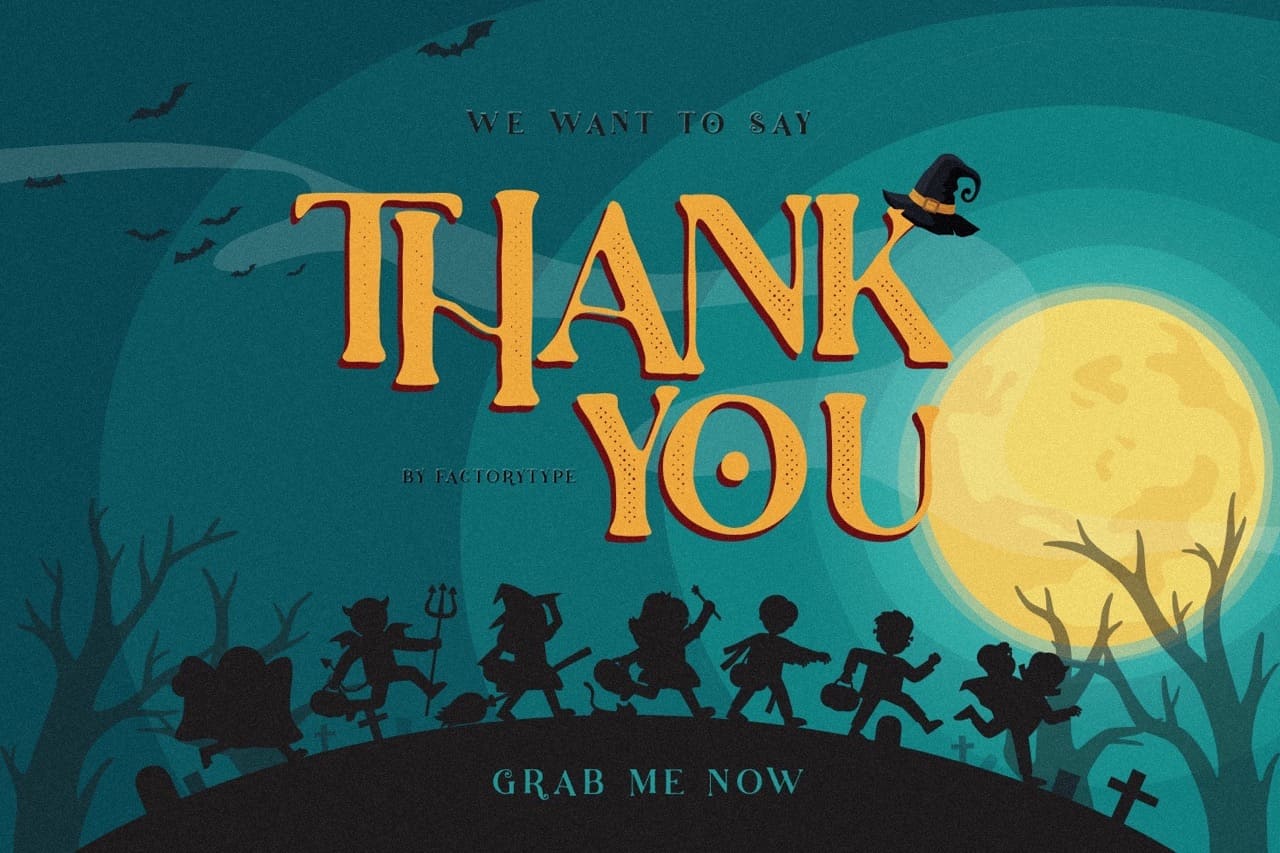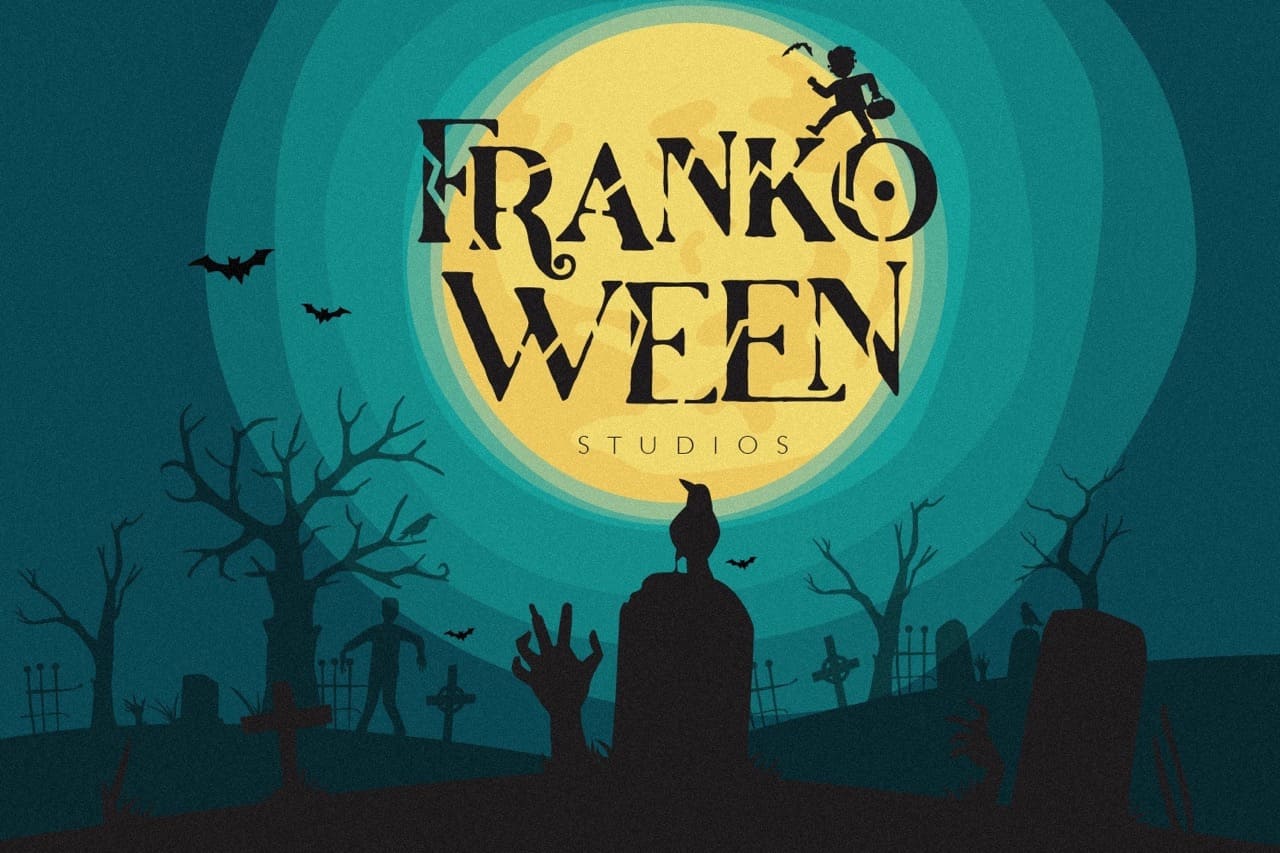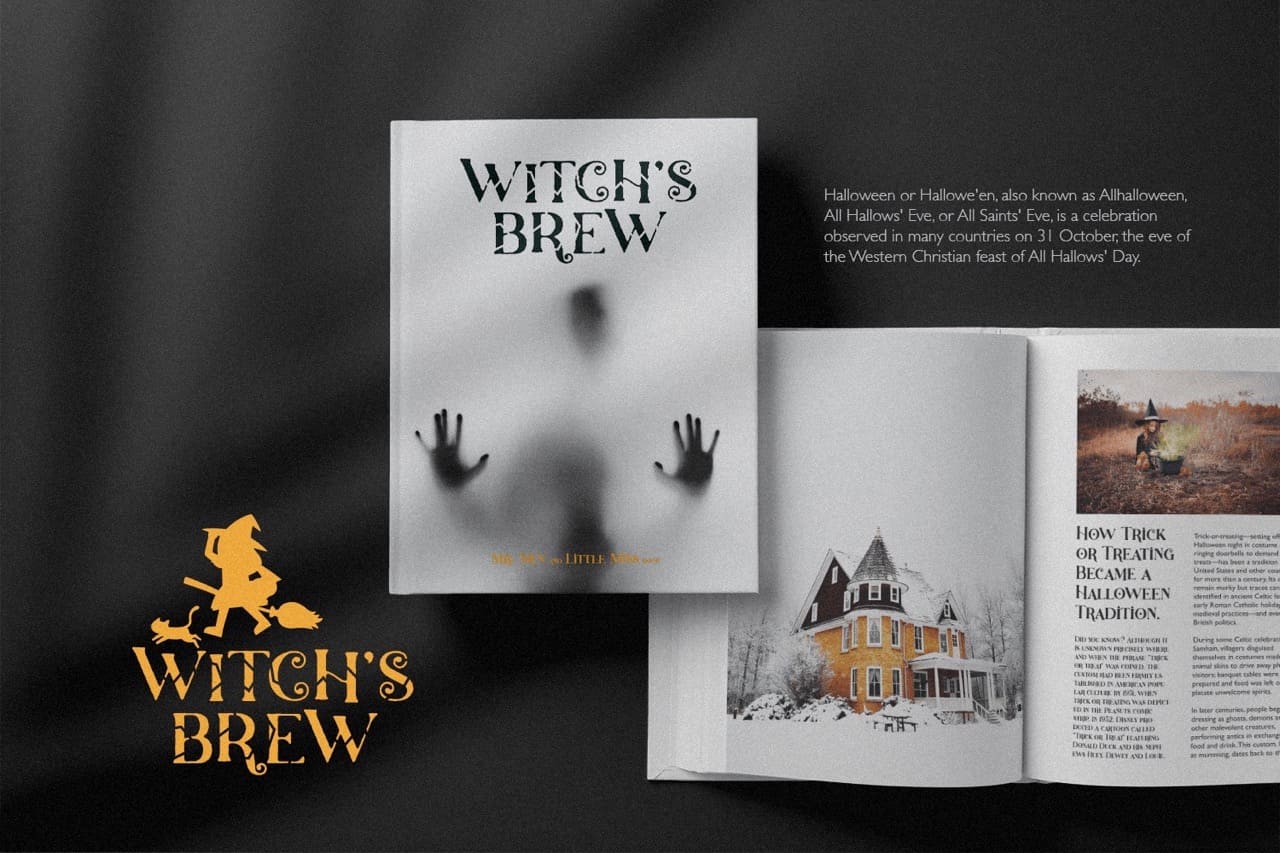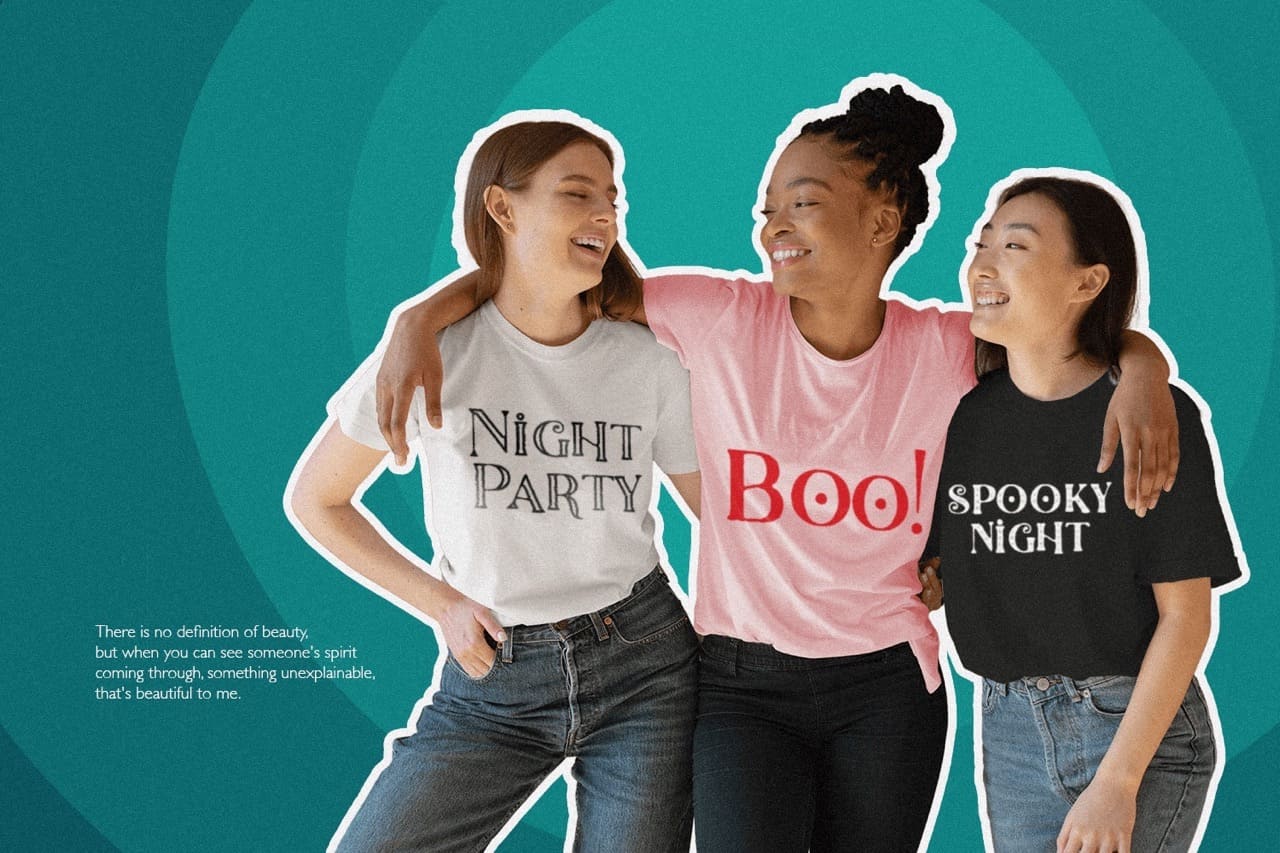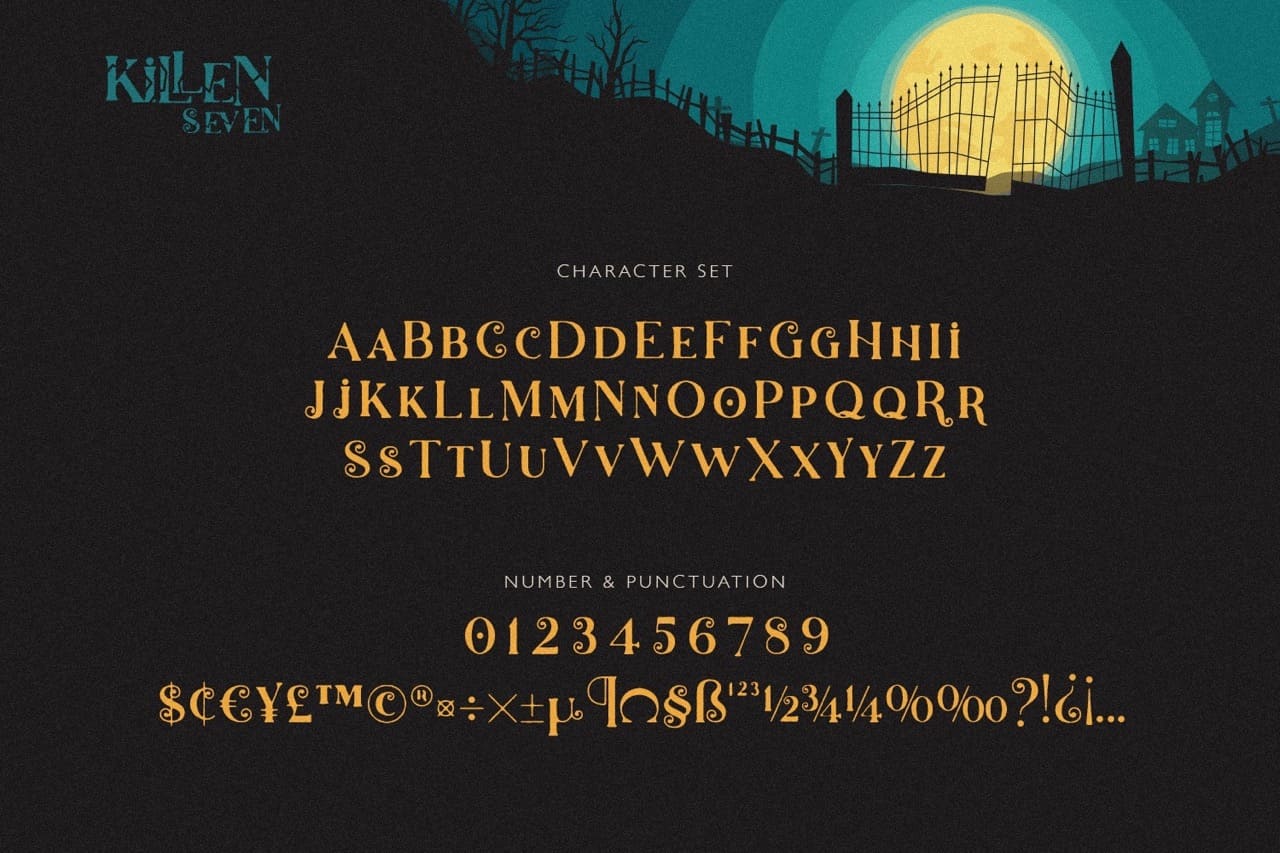
Halloween is fast approaching and you need a Halloween font for all your Halloween projects. Killen Seven is here to help you finish with a custom, professional spirit. It has all the awesomely creepy fonts you’ve been needing!
- Stylistic Ligatures and Alternate Glyphs